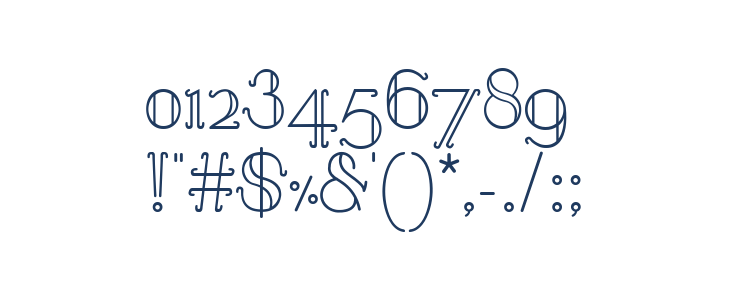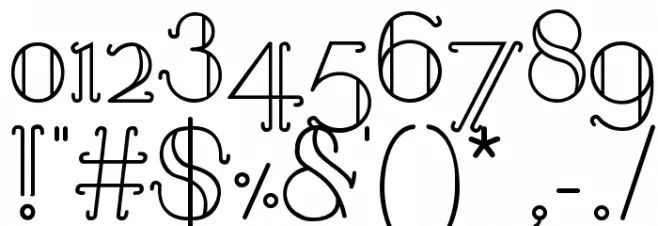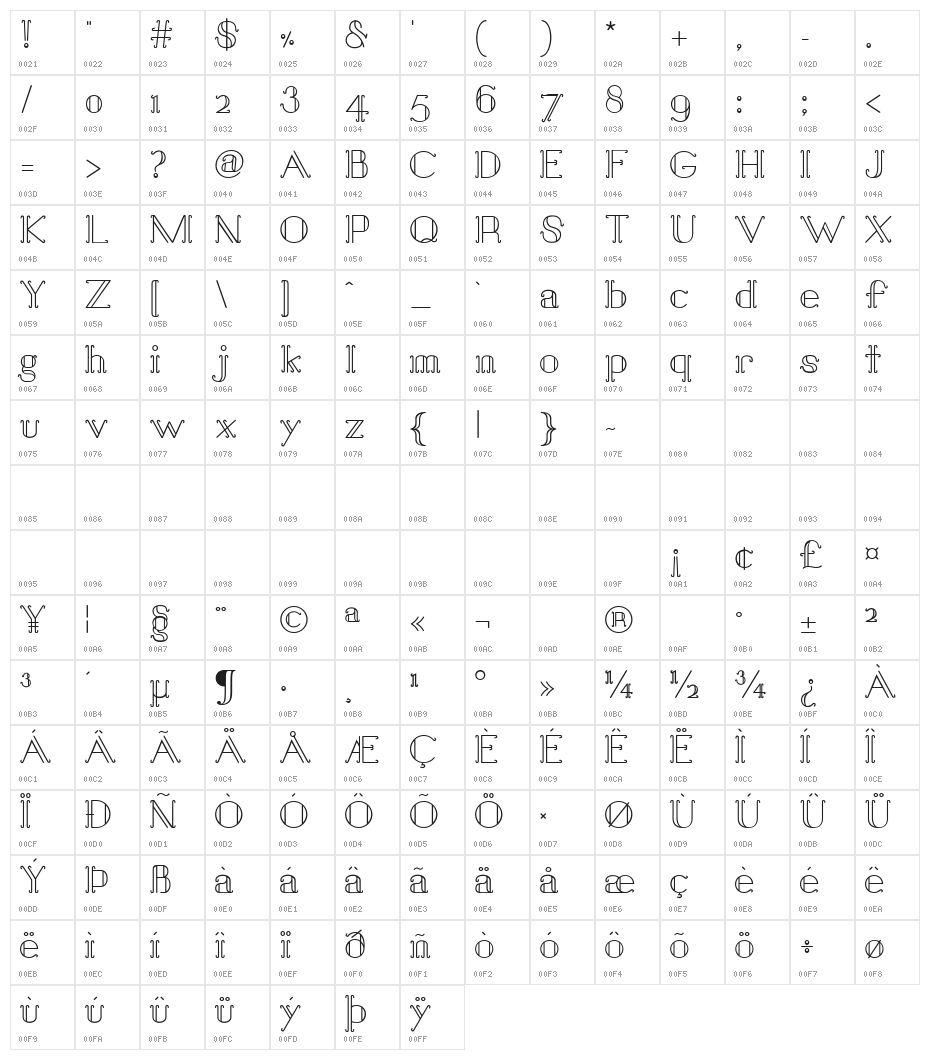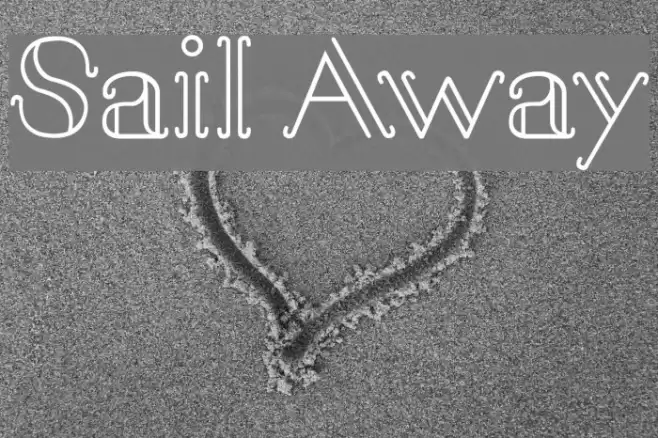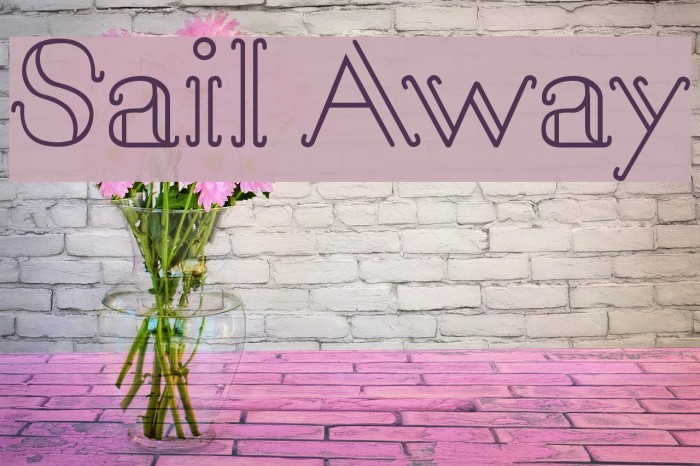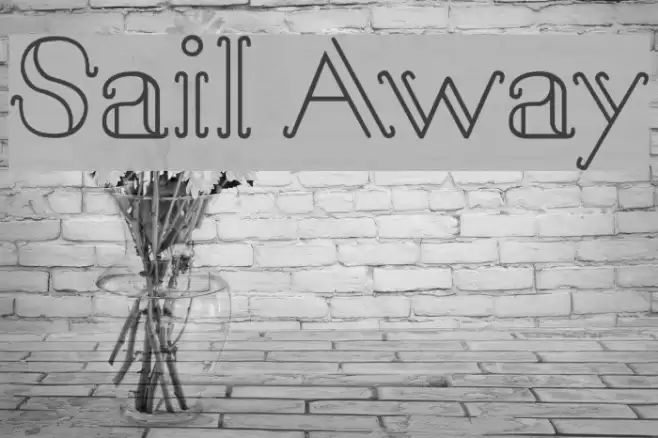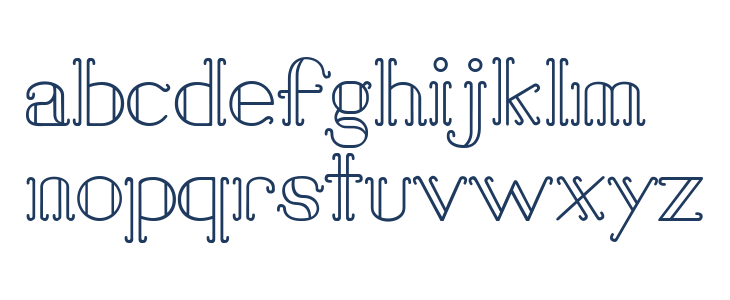
Sail Away Font
Sail Away Description
This font features a unique and decorative style with a modern twist. Each character is crafted with a double-line structure, giving it a distinctive and playful appearance. The uppercase letters are bold and striking, while the lowercase letters maintain a consistent design with a slightly softer touch. The numerals and special characters follow the same design principles, ensuring a cohesive look across all elements. The font's open and airy feel is enhanced by its medium contrast in stroke thickness, making it both eye-catching and legible. Its artistic flair makes it ideal for creative projects that require a touch of elegance and whimsy.
| Proposed Projects | Ideal for branding, posters, invitations, and creative design projects. |